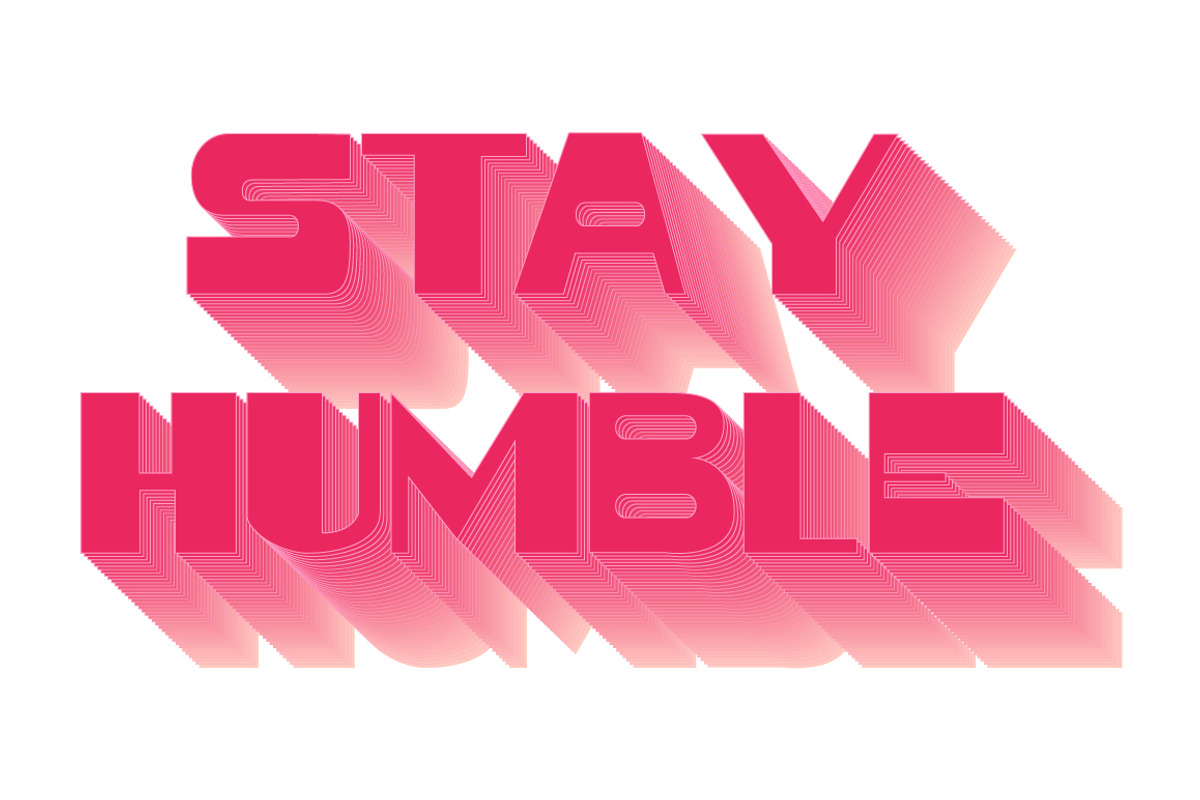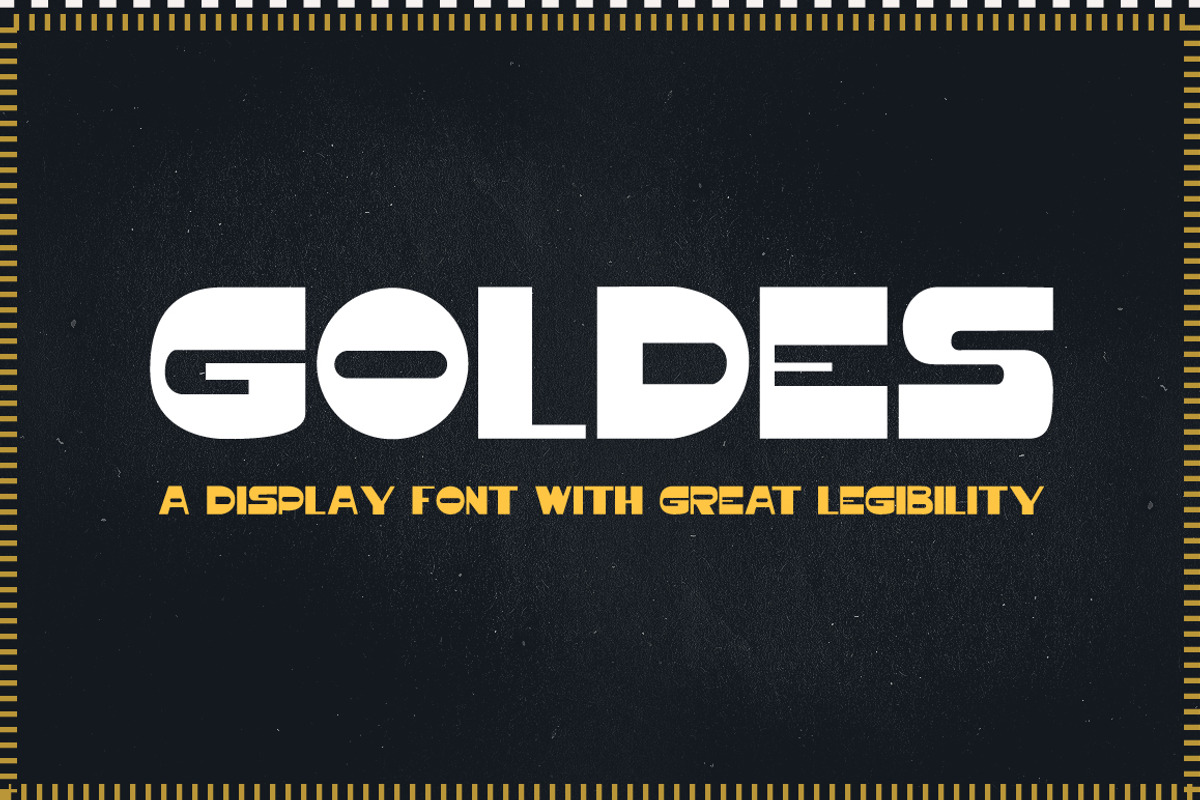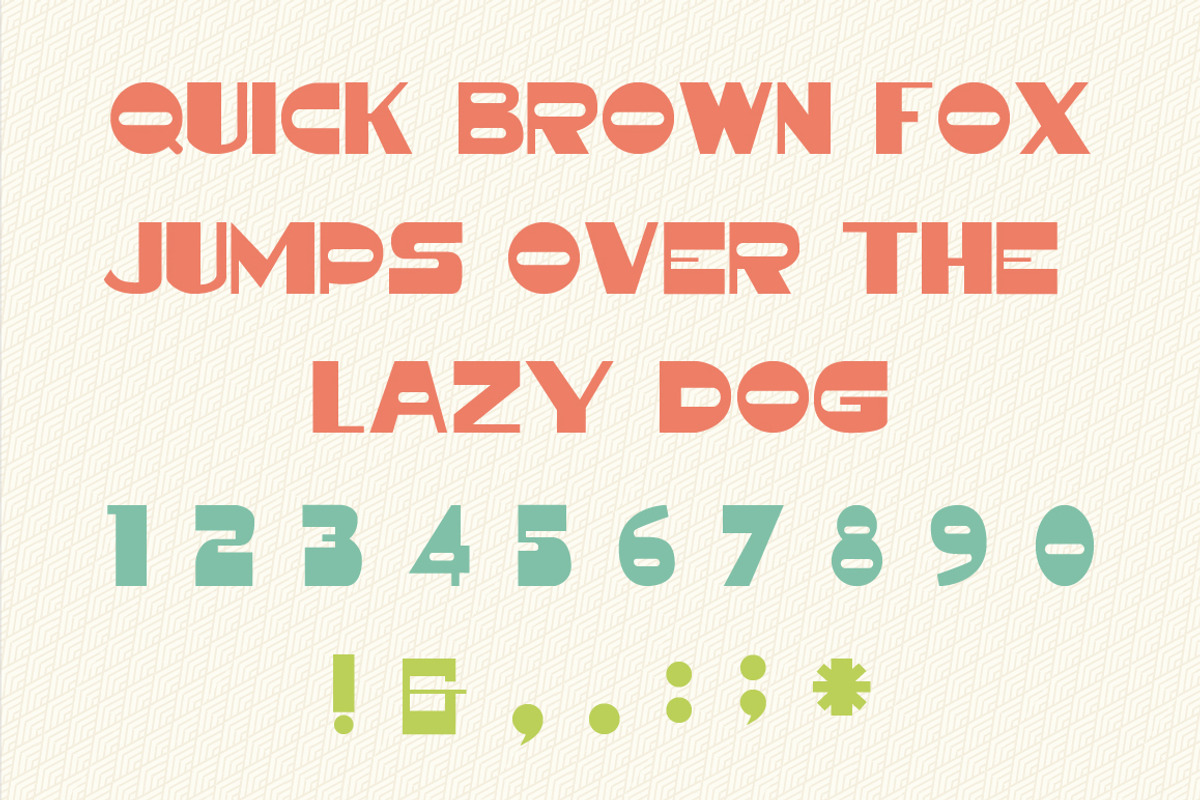
Goldes Font
Goldes Font by Niram Factory is a font selected for branding, posters, packaging, typography.
- This typeface comes with uppercase, numerals and punctuations.
Why Goldes Font is worth a look
Goldes Font by Niram Factory fits naturally into Branding, posters, packaging, typography.